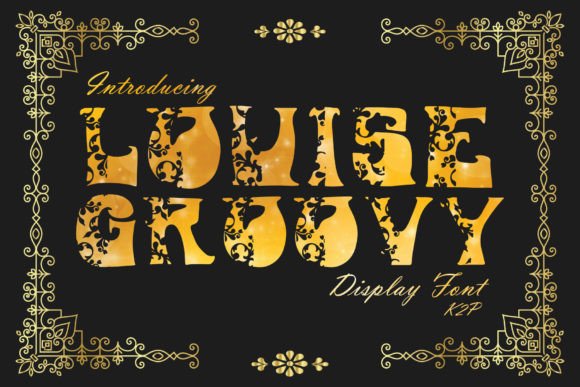
Journey back in time with Louise Groovy, a captivating decorative font that oozes retro charm and playful elegance. Step into a world of nostalgia, where this enchanting font dances across your designs, evoking fond memories of the past with its groovy vibes.
Louise Groovy is more than just a font; it's a ticket to creative expression, allowing you to craft designs that speak volumes. Its unique and timeless style adds an instant touch of intrigue, making your projects stand out from the crowd. The font's distinct character adds a personal touch to your designs, like a handwritten signature that carries the weight of your individuality.
Whether you're creating logos, branding materials, social media graphics, or greeting cards, Louise Groovy will infuse your work with a delightful dose of retro flair. Its versatility knows no bounds, adapting seamlessly to a wide range of design styles and themes. Let your imagination run wild as you explore the endless possibilities that await with this enchanting font.
Louise Groovy is the perfect choice for designers, artists, and creative enthusiasts who seek to add a touch of whimsy and charm to their projects. Its user-friendly nature makes it accessible to both seasoned professionals and those just starting their design journey. Experience the magic of Louise Groovy today, and let your designs groove to the rhythm of nostalgia!